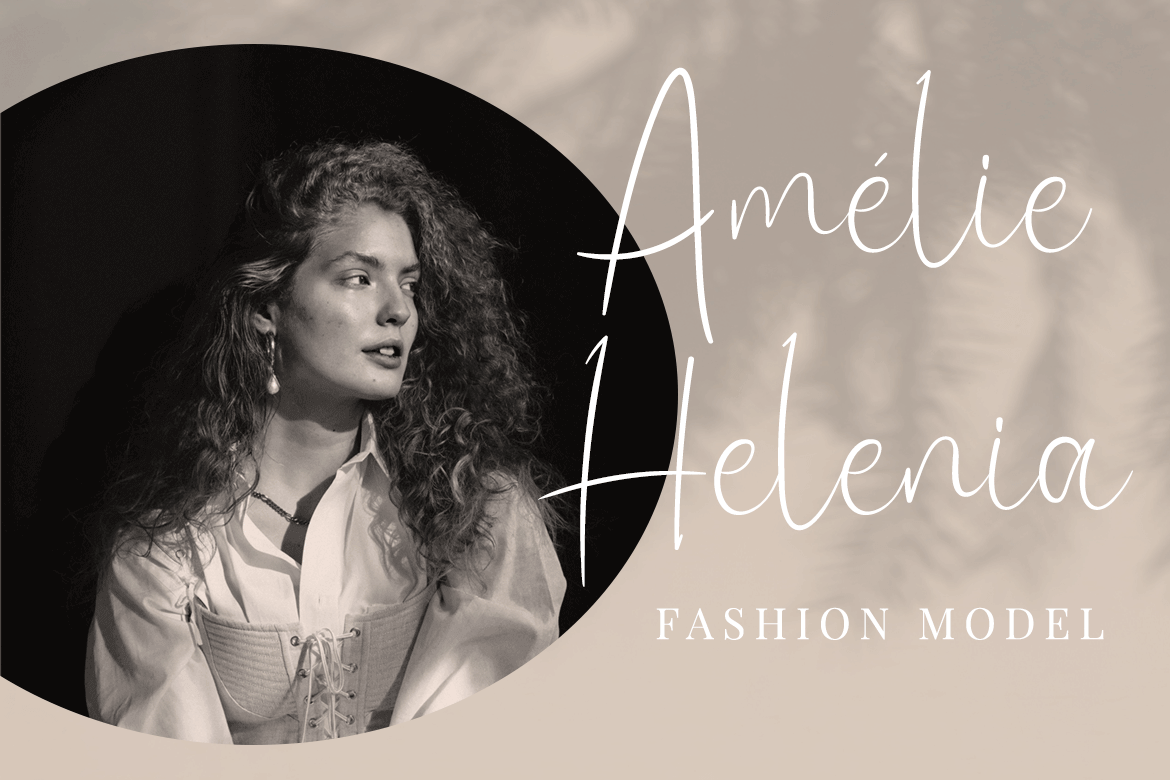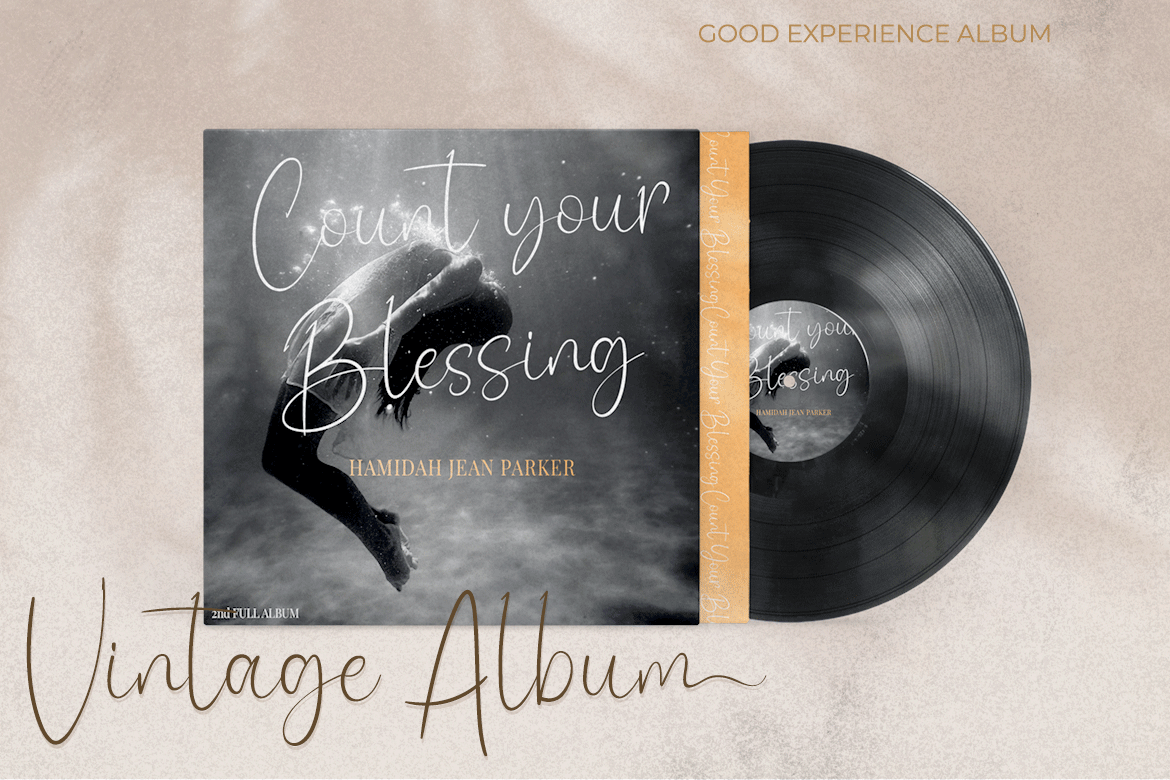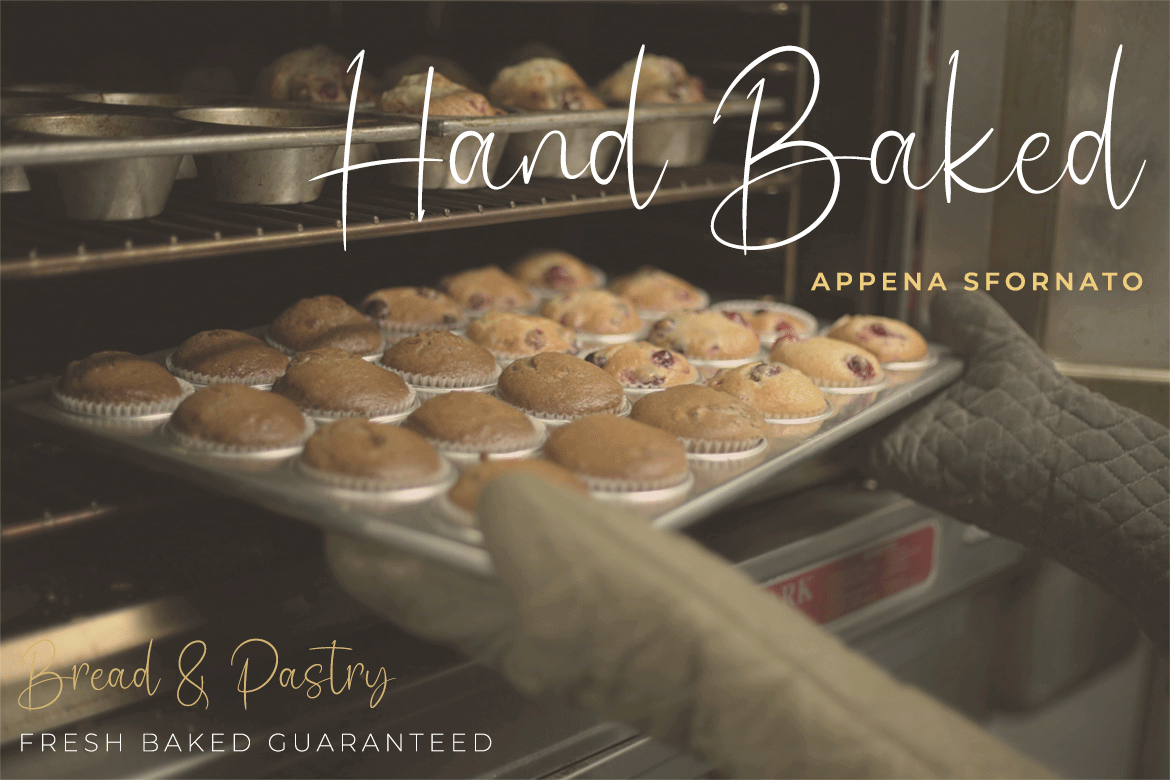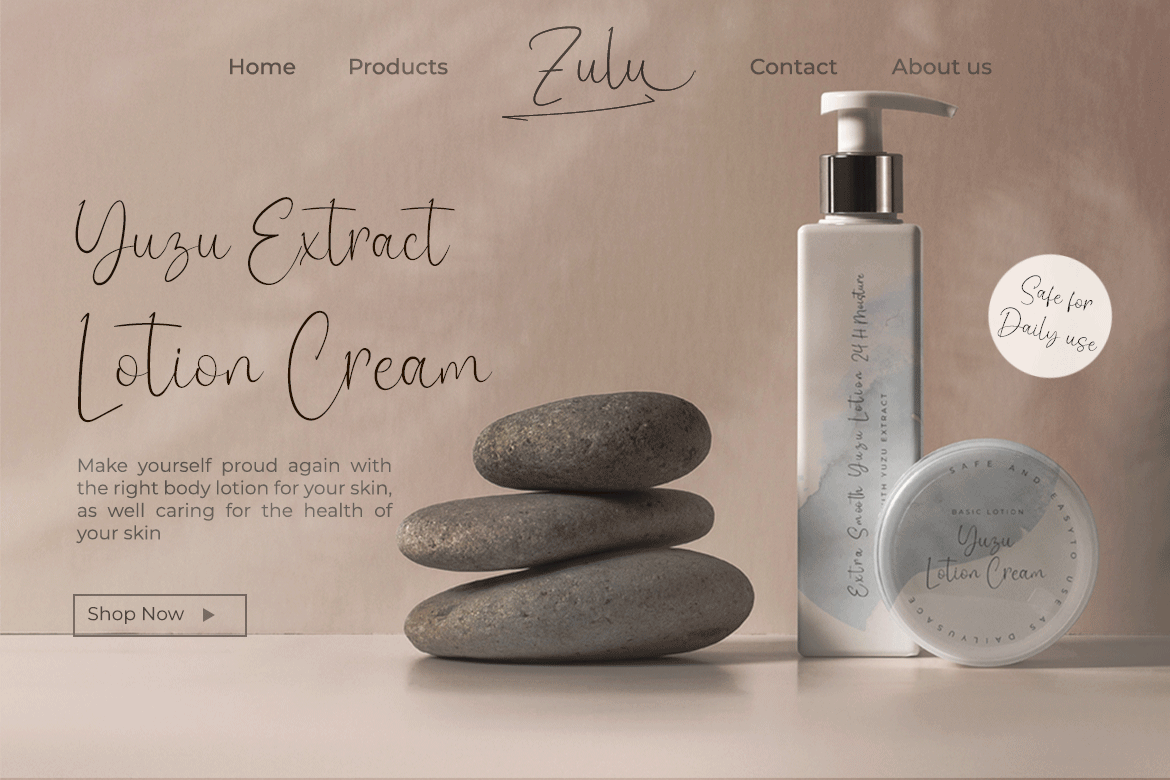
Rydhesti Font
Rydhesti Script Font
This is a thin lettered and graceful script font. Fall for its ravishing style and use it to create gorgeous wedding invitations, beautiful stationary art, eye-catching social media posts, and much more! Rydhesti is PUA encoded which means you can access all of the glyphs and swashes with ease!